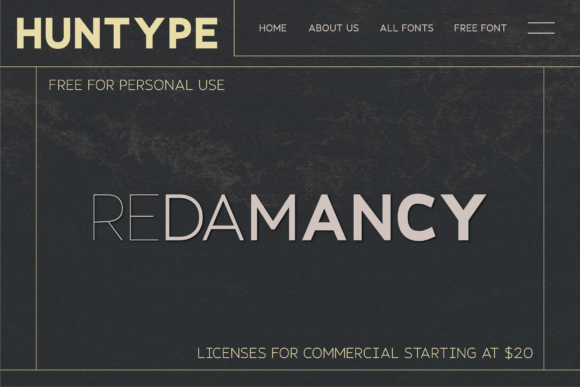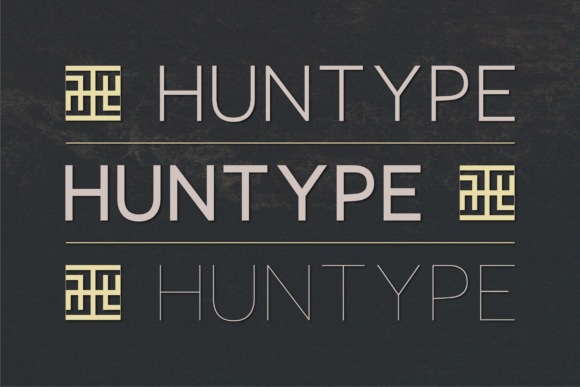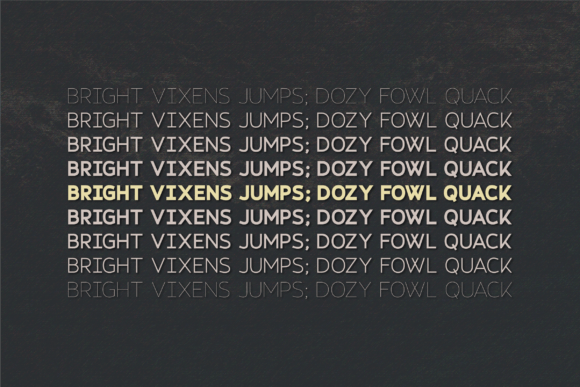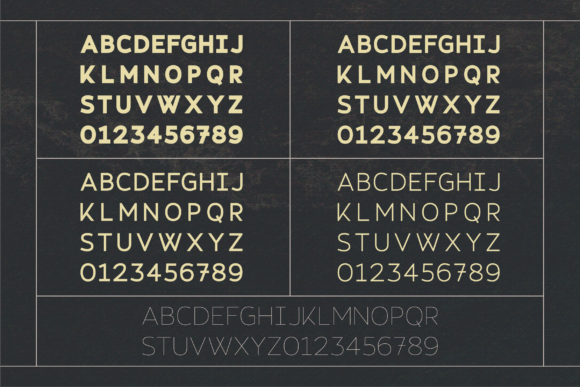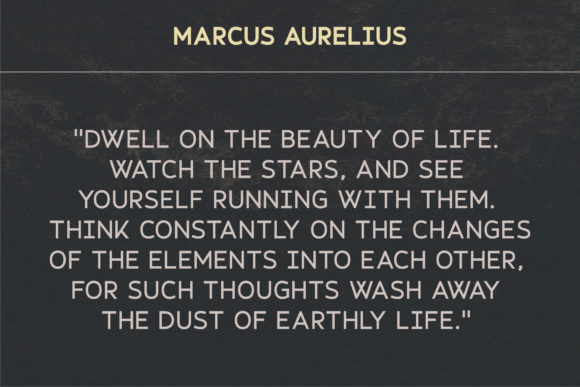
Introduction to Redamancy Font
You’ve spent hours pouring over design concepts, searching for the perfect font to elevate your creative project. But then, it hits you – the perfect combination of clean lines, subtle sophistication, and a hint of modernity. Welcome to the world of Redamancy Font, a high-quality design resource that’s about to become your new go-to.
As a designer, you understand the importance of choosing the right font to convey your message. With Redamancy Font, you’ll have the flexibility to create a wide range of designs, from logos and headlines to branding and more. Its adaptable style and range of weights make it an ideal choice for any creative endeavor. And the best part? You can download it for free, giving you the freedom to experiment and explore new ideas without any restrictions.
Whether you’re working on a project with a transparent background or need a font that exudes sophistication, Redamancy Font is the perfect solution. Its clean, geometric aesthetic makes it a valuable asset for any designer looking to create a modern and professional look. So why wait? Dive into the world of Redamancy Font and discover the endless possibilities it has to offer.
Key Features of Redamancy Font
- High-quality design: The Redamancy Font is a premium font designed for creative projects, offering a unique and elegant style.
- Transparent background: This font features a transparent background, making it perfect for use on images or videos with complex backgrounds.
- High-resolution design: The Redamancy Font is designed at a high resolution (300 DPI), making it suitable for use in large-scale creative projects.
- Unique characteristics: The font features a unique blend of modern and vintage elements, making it perfect for designers looking to add a touch of sophistication to their creative project.
- Perfect for design projects: The Redamancy Font is ideal for use in creative projects such as logos, branding, and typography-based designs.
Honest Review: Redamancy Font
I recently had the chance to try out the Redamancy Font, and I’m excited to share my thoughts on this unique design resource.
- The Redamancy Font offers a high quality, elegant look that would be perfect for a creative project that requires a touch of sophistication.
- The transparent background makes it easy to combine with other design elements, allowing for endless possibilities.
While the Redamancy Font is a great addition to any design arsenal, I did notice a few limitations. The font is only available in a few weights, which might limit its versatility for some projects.
Additionally, the font’s unique style might not be suitable for all design projects, particularly those that require a more straightforward or formal look.
Overall, I’m impressed with the Redamancy Font. Its unique style and high quality make it a great resource for designers looking to add some creativity to their projects. While it may have some limitations, I think it’s definitely worth checking out for any design enthusiast.
The Redamancy Font is a high-quality design resource that offers a unique and creative touch to your projects. With its transparent background, this font is perfect for various applications, from print to digital media.
The Redamancy Font is commonly used in various creative projects, including:
Logos and branding materials.
Business cards and stationery.
Social media graphics and advertisements.
Print and digital media, such as magazines and websites.